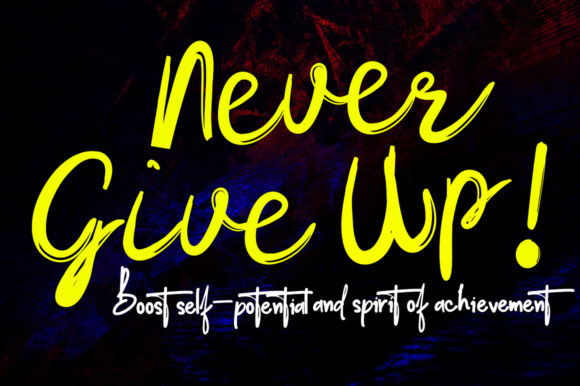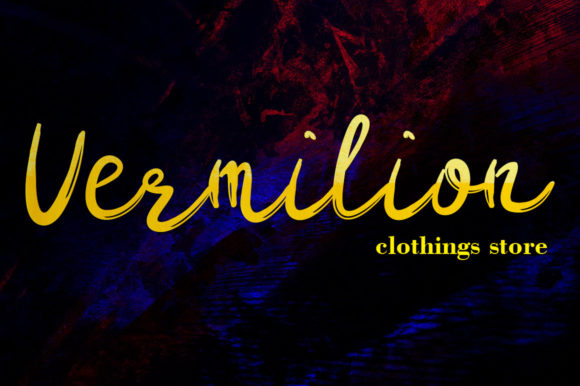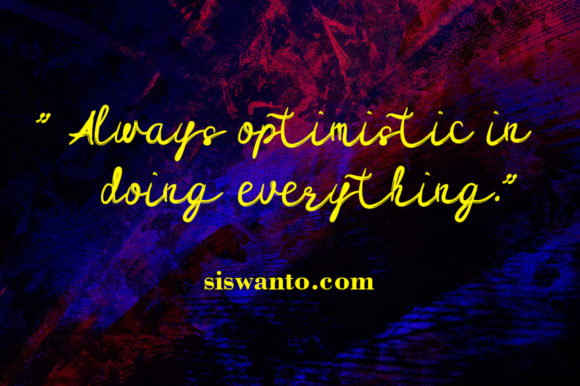
About Kick Point Brush Font
Introducing “Kick Point Brush” – a dynamic and free-flowing script font that injects energy and vibrancy into your designs. Crafted with meticulous attention to detail, this font is the perfect choice for a wide range of creative projects, from packaging and invitations to flyers, mockups, and event posters.
The beauty of Kick Point Brush lies in its fluid and expressive strokes that dance across the canvas. Each letter exudes a sense of movement and spontaneity, giving your text a lively and engaging appearance. The font’s free-flowing nature lends a sense of authenticity and uniqueness to your designs, making them stand out and captivate the viewer’s attention.
Kick Point Brush is tailor-made for projects that demand a high-quality and impactful visual presence. Imagine it adorning packaging products, instantly elevating their appeal and creating a memorable first impression. Envision it on invitation cards, setting the tone for an exciting event and inviting recipients to be part of a special occasion.
The font’s versatility shines through in its ability to enhance a variety of materials. Whether you’re creating flyers to promote your business or designing mockups to showcase your products, Kick Point Brush adds a touch of artistic flair that takes your designs to the next level. Its balanced character ensures that it harmonizes seamlessly with a diverse range of design elements.
When it comes to event posters, Kick Point Brush truly shines. Its dynamic and free-spirited nature aligns perfectly with the spirit of events, be it concerts, festivals, or gatherings. The font’s captivating strokes create an eye-catching focal point that draws in the viewer and conveys a sense of excitement and anticipation.
Embracing Kick Point Brush allows you to infuse your projects with a sense of creativity and spontaneity. Its beautiful and balanced character brings a harmonious and visually appealing touch to your text, making your designs more engaging and memorable. Whether you’re working on digital graphics or printed materials, Kick Point Brush empowers you to create captivating visuals that leave a lasting impact.
Incorporate Kick Point Brush into your design toolkit and unleash its potential to transform ordinary projects into extraordinary works of art. Let its free-flowing spirit breathe life into your creations and add a high-quality vibe that resonates with your audience. With Kick Point Brush, you have the key to crafting designs that are as captivating as they are memorable.